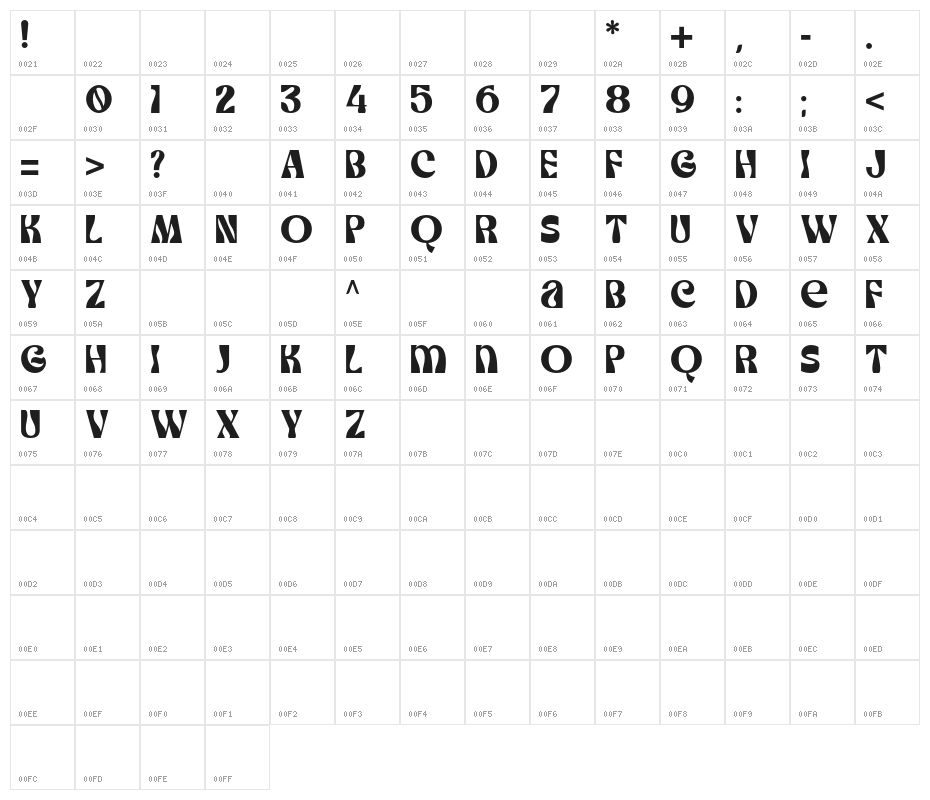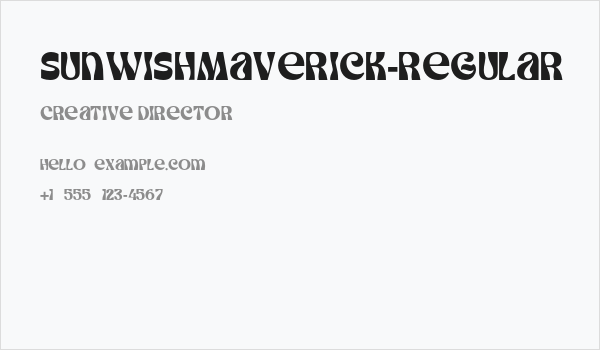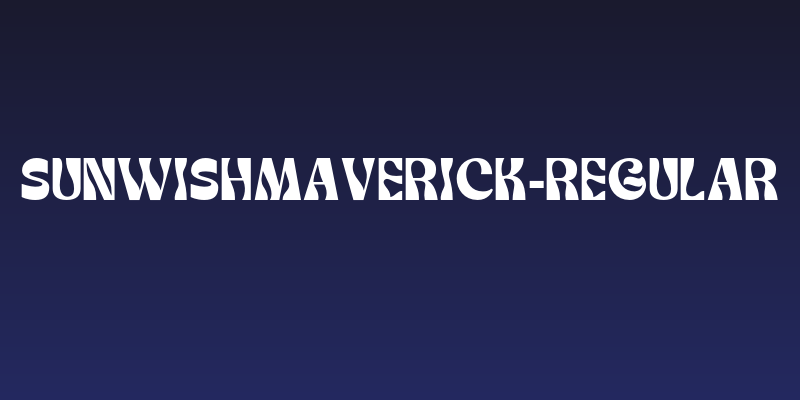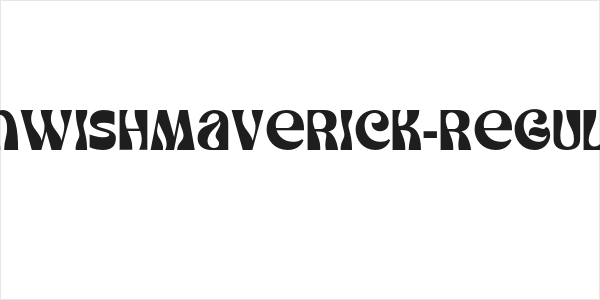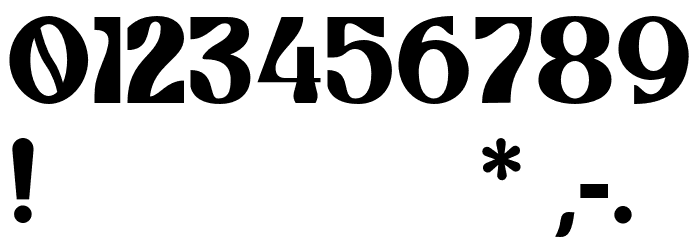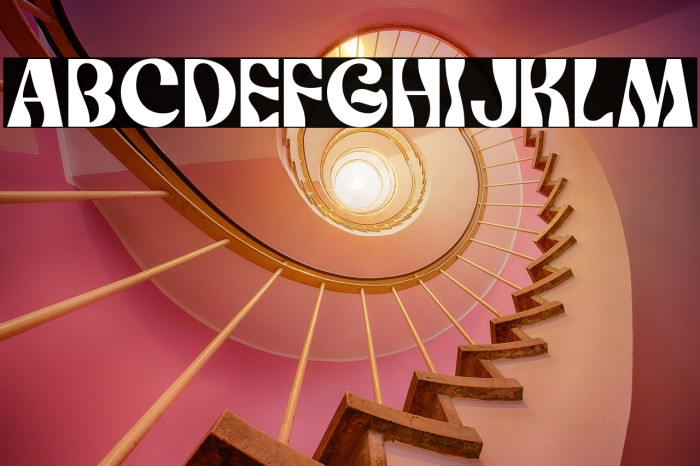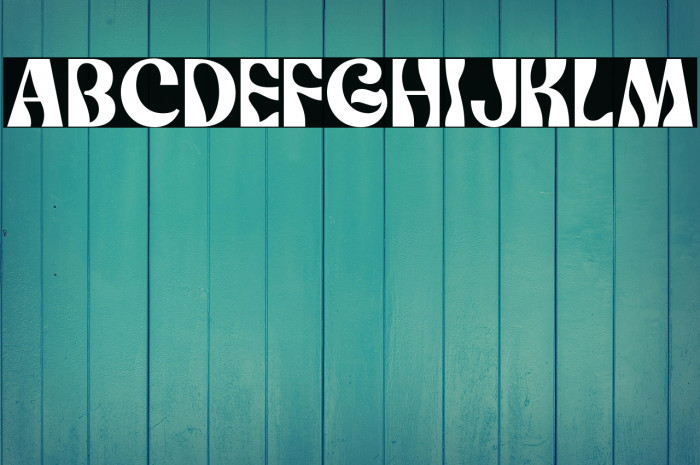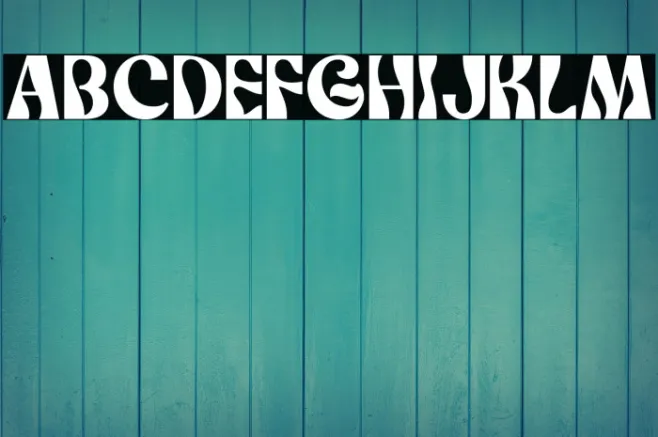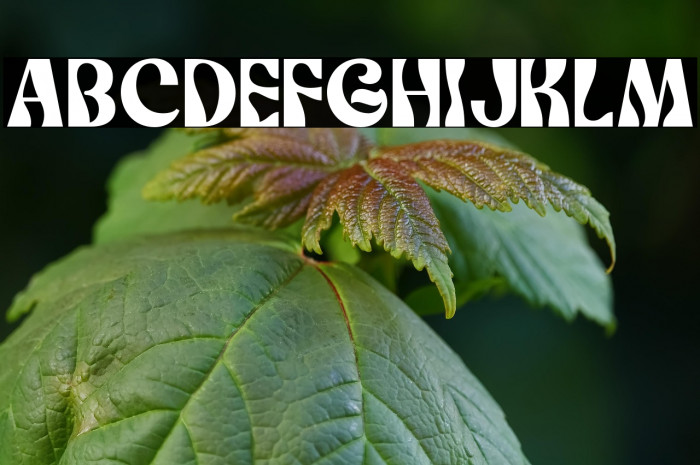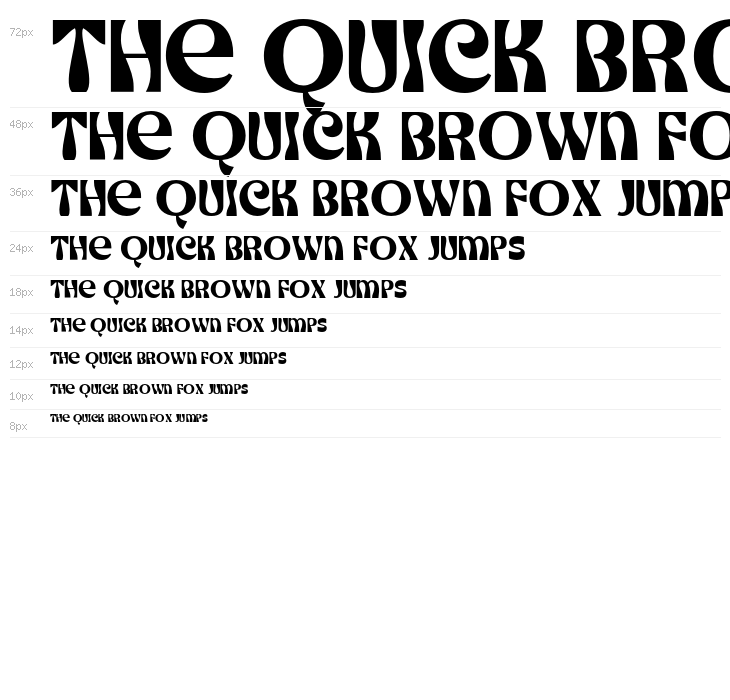
SunwishMaverick-Regular Font
SunwishMaverick-Regular Description
This font features a bold and dynamic design with a strong presence. The characters are crafted with a unique blend of sharp angles and smooth curves, creating a striking contrast that draws attention. The uppercase letters exhibit a sense of power and authority, while the lowercase letters maintain a cohesive flow. The numerals are distinct and easily readable, complementing the overall style. Special characters are creatively integrated, adding to the font's versatility. This font is ideal for projects that require a bold statement and a modern aesthetic.
| Proposed Projects | Ideal for branding, posters, headlines, and any design requiring a strong visual impact. |